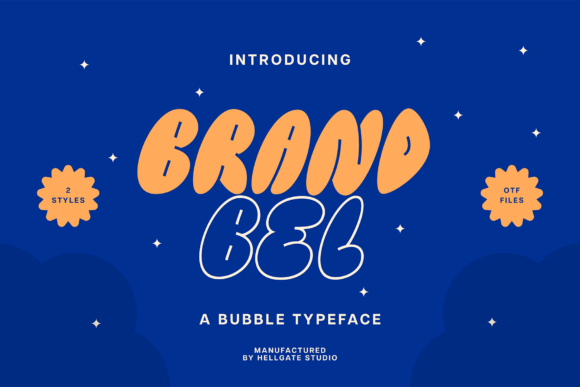
Experience the Fun and Playfulness of Brandbel Bubble Typeface
In the world of typography, fonts play a crucial role in conveying the tone and personality of a brand. When it comes to creating a fun and playful vibe, the right font can make all the difference. This is where the Brandbel Bubble Typeface comes in – a vibrant and buoyant font that injects a playful charm into any design. In this article, we’ll dive into the features and benefits of the Brandbel Bubble font and explore how it can elevate your designs with its carefree and jovial aesthetic.
Key Features of Brandbel Bubble Font
- Vibrant and Buoyant Design: The Brandbel Bubble font boasts a unique and playful design that is sure to grab attention. Its bubbly personality can turn any text into a visual treat, making it perfect for designs that require a fun and carefree vibe.
- Effortless Customization: This font is effortless to amend in terms of text and color, allowing you to tailor it to your specific design needs. Whether you’re working on a branding project, a marketing campaign, or a personal design venture, the Brandbel Bubble font can be easily customized to fit your style.
- High-Quality Render: The Brandbel Bubble font boasts a high-quality render, ensuring that the spark it brings to your designs remains undiminished in any condition. This means that whether you’re viewing your design on a screen or in print, the font will remain clear and vibrant.
How Brandbel Bubble Font Can Elevate Your Designs
The Brandbel Bubble font is crafted to elevate your designs and embrace a carefree and jovial aesthetic. By incorporating this font into your design projects, you can:
- Add a Playful Touch: The Brandbel Bubble font is perfect for designs that require a playful and fun vibe. Whether you’re working on a children’s brand, a youth-oriented campaign, or a design project that requires a lighthearted approach, this font can help you achieve your goals.
- Stand Out from the Crowd: In a world where designs can often feel generic and bland, the Brandbel Bubble font offers a refreshing alternative. Its unique and playful design ensures that your text will stand out from the crowd and grab attention.
- Enhance Brand Personality: The right font can play a crucial role in conveying a brand’s personality and tone. The Brandbel Bubble font can help you create a fun and playful brand image that resonates with your target audience.
Design Applications for Brandbel Bubble Font
The Brandbel Bubble font is versatile and can be used in a variety of design applications, including:
- Branding and Identity: Use the Brandbel Bubble font to create a fun and playful brand image that reflects your company’s personality and tone.
- Marketing and Advertising: This font is perfect for marketing campaigns that require a lighthearted and playful approach. Use it to create eye-catching ads, social media graphics, and promotional materials.
- Packaging and Label Design: The Brandbel Bubble font can add a playful touch to packaging and label design, making your products stand out on store shelves.
- Digital Design: Use the Brandbel Bubble font in digital designs, such as website headers, social media graphics, and email newsletters, to create a fun and engaging user experience.
Why Choose Brandbel Bubble Font?
With so many fonts available, why choose the Brandbel Bubble font? Here are just a few reasons:
- Unique Design: The Brandbel Bubble font boasts a unique and playful design that sets it apart from other fonts.
- Customization Options: This font is effortless to amend in terms of text and color, allowing you to tailor it to your specific design needs.
- High-Quality Render: The Brandbel Bubble font boasts a high-quality render, ensuring that it remains clear and vibrant in any condition.
In conclusion, the Brandbel Bubble font is a must-have for designers looking to add a playful and fun vibe to their designs. With its vibrant and buoyant design, effortless customization options, and high-quality render, this font is perfect for a variety of design applications. Whether you’re working on a branding project, a marketing campaign, or a personal design venture, the Brandbel Bubble font can help you create a carefree and jovial aesthetic that resonates with your target audience.